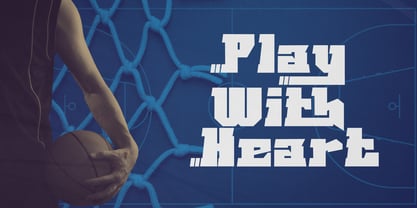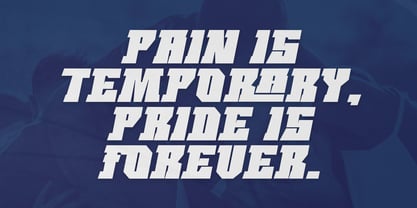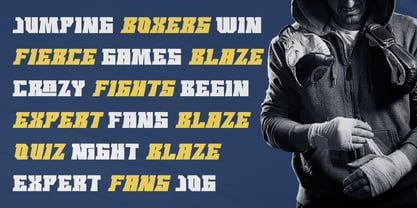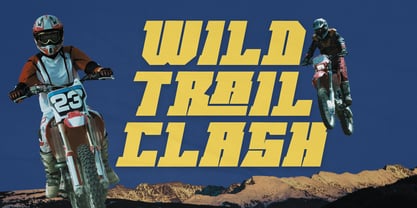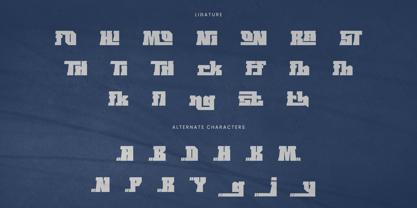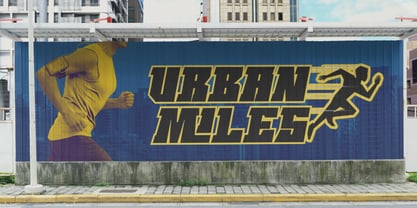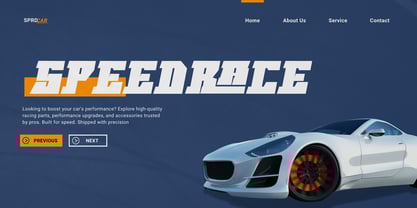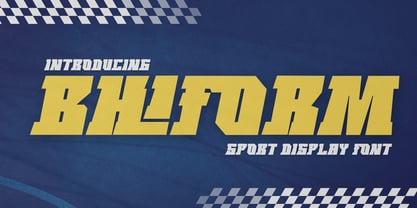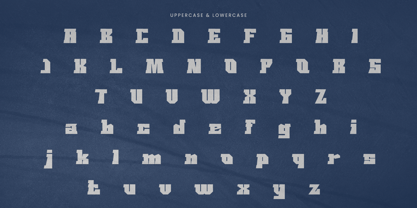
Bhiform
by Rvandtype
The Bhiform Font Family was designed by Randi Irvan and published by Rvandtype. Bhiform contains 2 styles and family package options. More about this family
Immerse yourself in the high-octane world of Bhiform, a sport-inspired font that thrives in the fast lane. Its anatomy is crafted with bold strokes, sharp corners, and potent lines, embodying the adrenaline-fueled ethos of motorsports. Its vigorous stance amplifies energy through your typography, making Bhiform the go-to choice for race event promotions, automotive identity creations, athletic wear, and action-driven headlines. Use Bhiform to elevate your design for raceway memorabilia, thrilling video games, or custom vehicle decals. With Bhiform, your racing-themed creations will cross the finishing line in unparalleled style and impact.
Designers: Randi Irvan
Foundry: Rvandtype